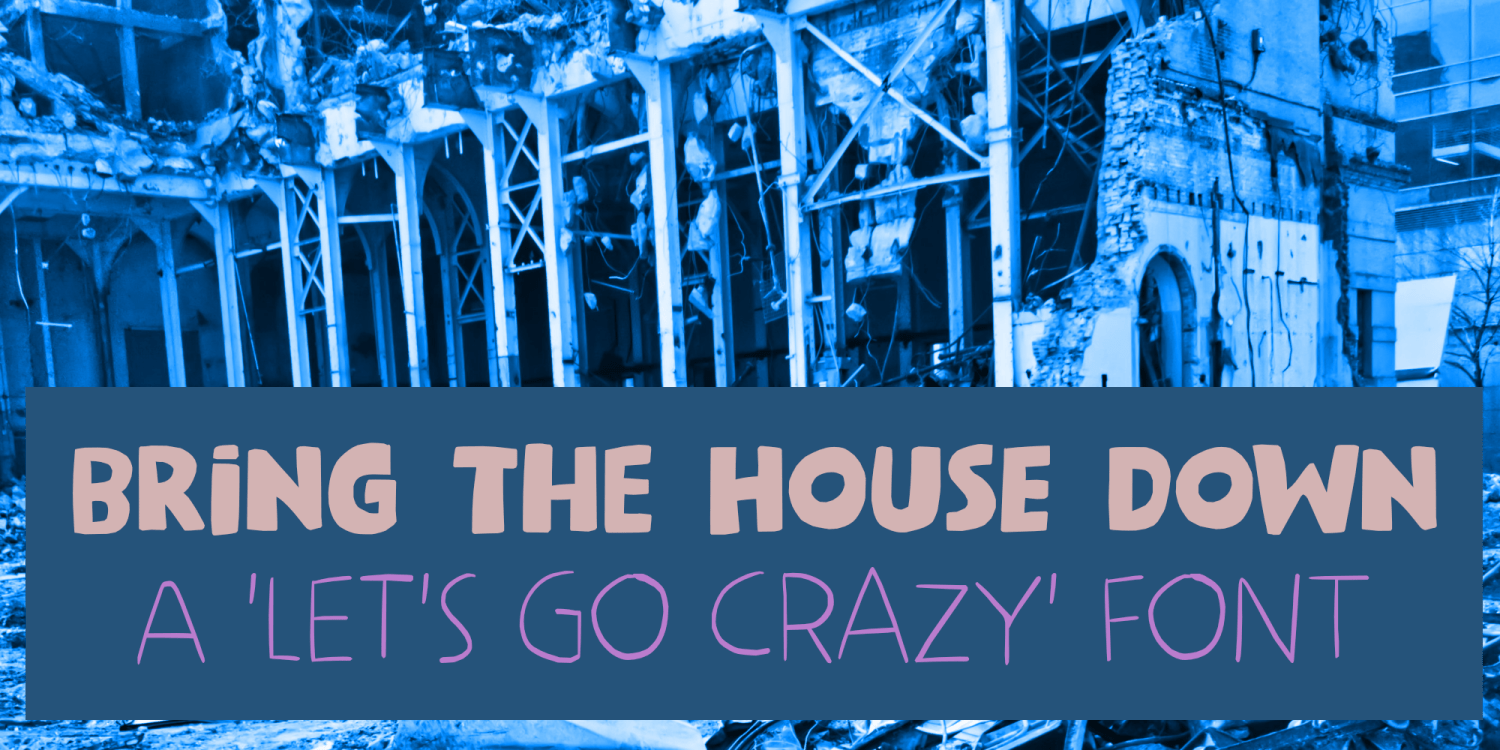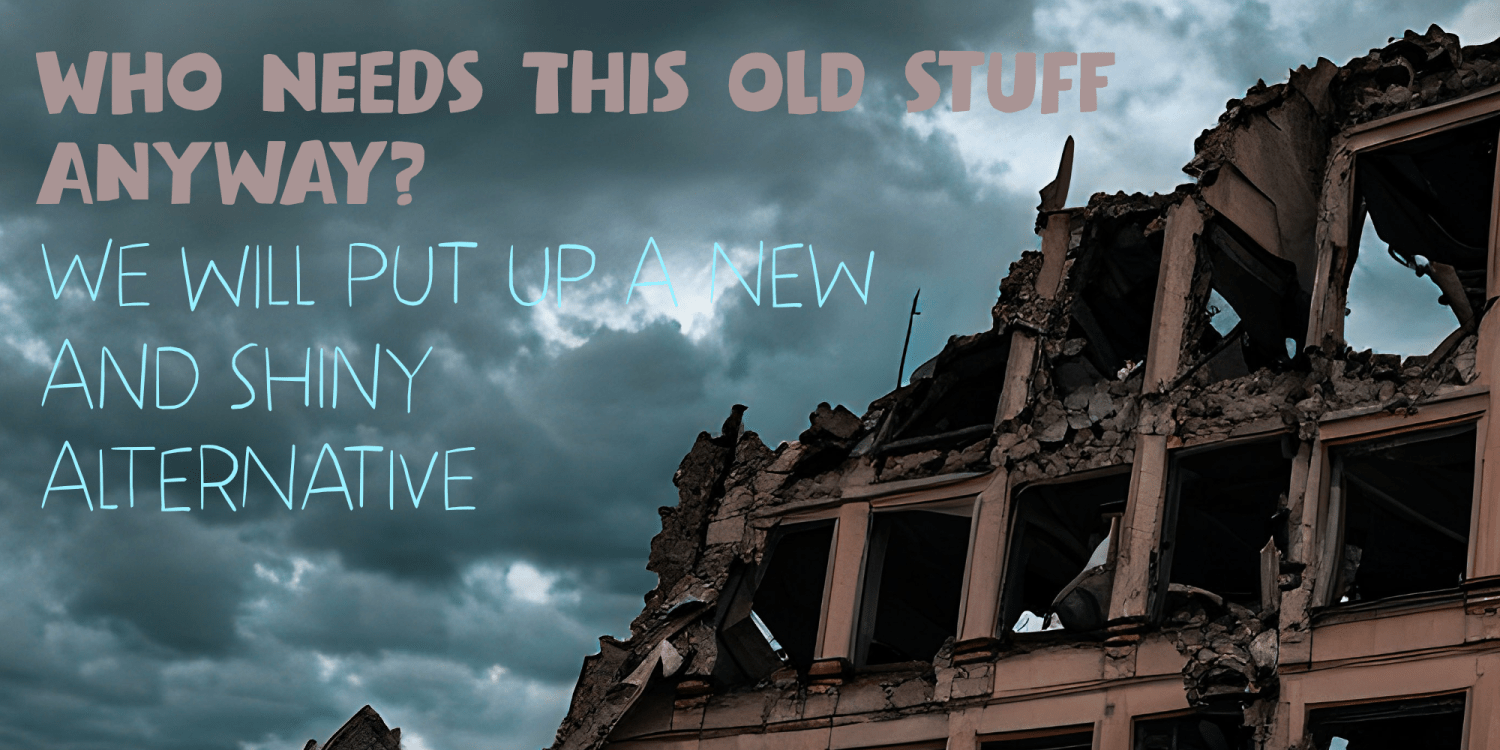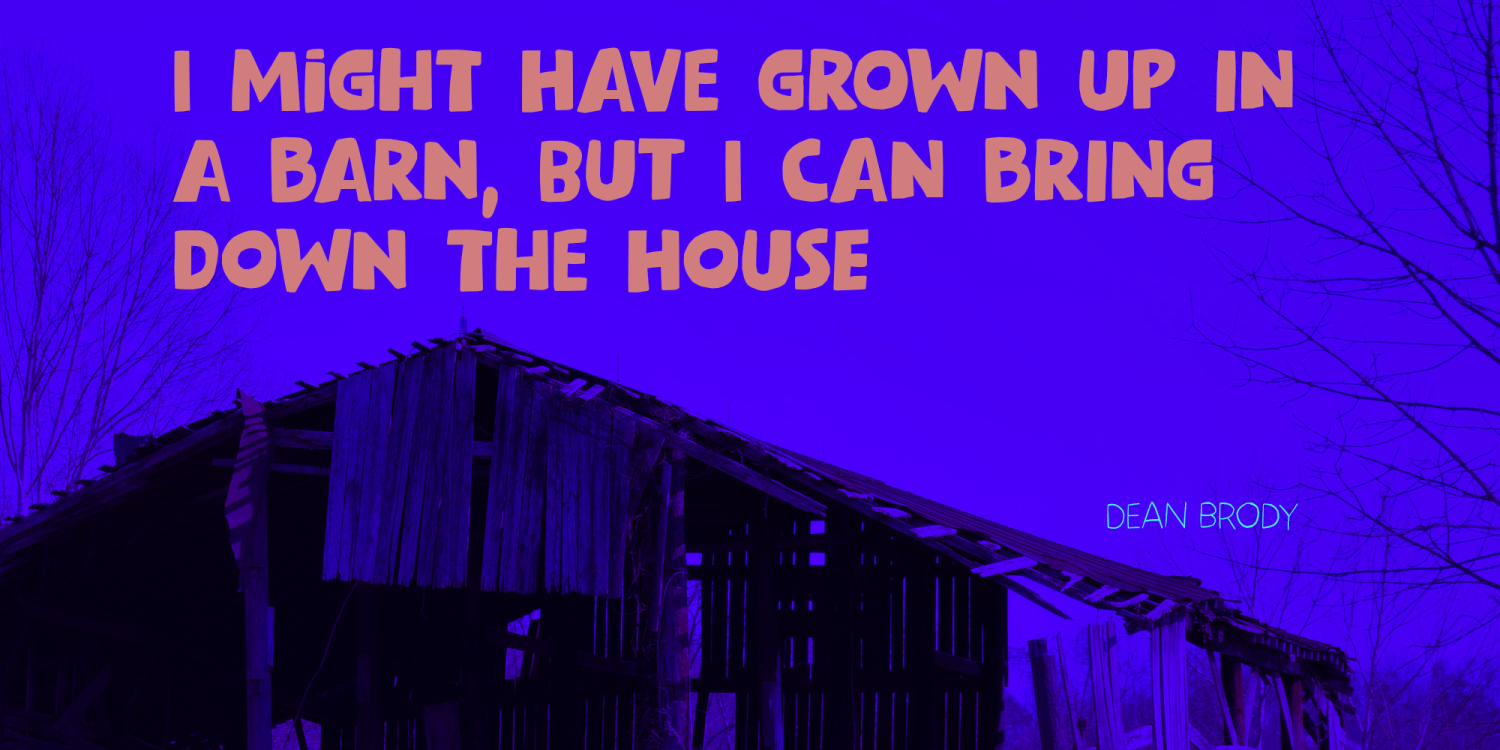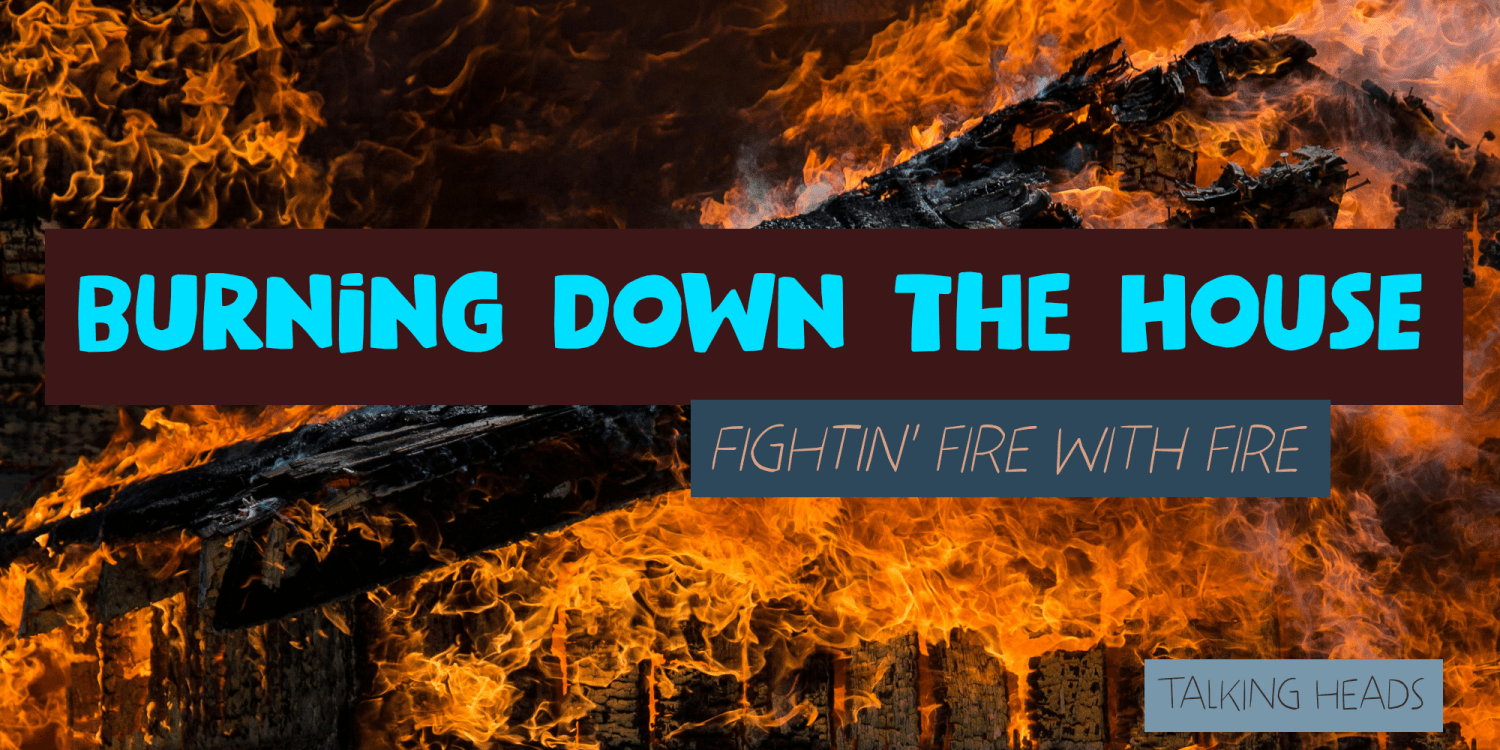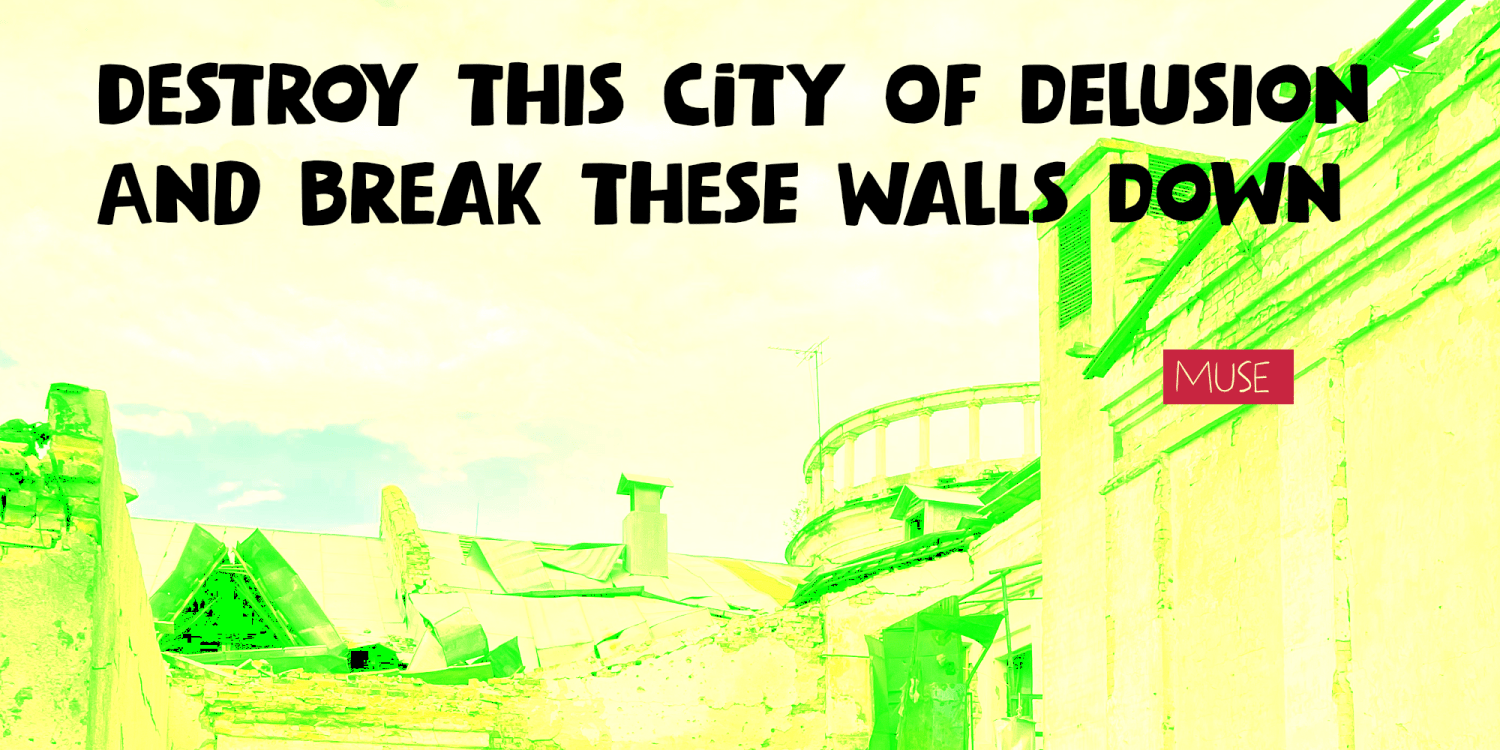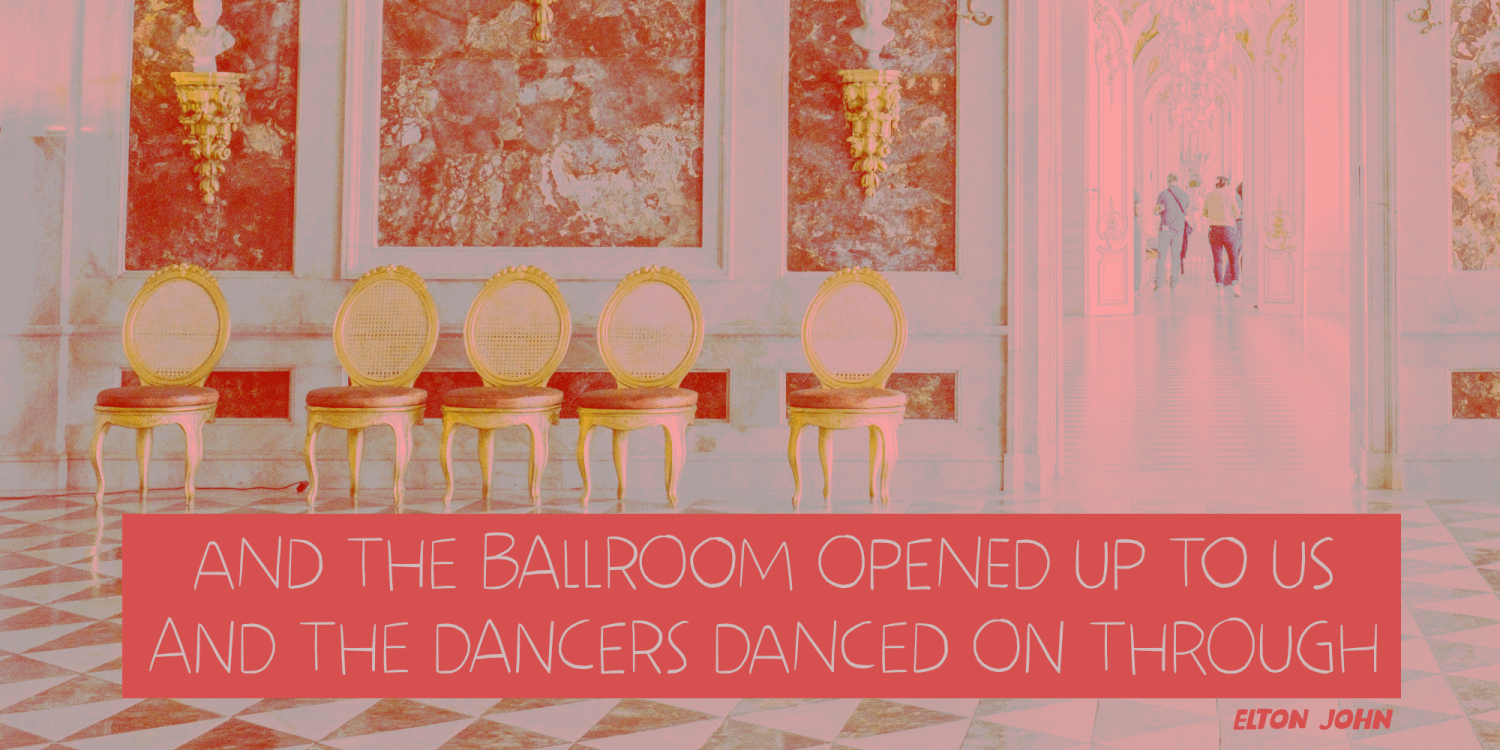
Bring The House Down
Bringing The House Down is a 2003 comedy, starring Steve Martin and Queen Latifah. I have to admit I have never watched it, but it did remind me of a recent event where a famous mansion was half destroyed.
Bring The House Down consists of 2 distinct fonts (and their Italics). It can be used for advertising, packaging and book covers, but these handmade fonts will look good in any project.
Both fonts come with a full set of alternates.